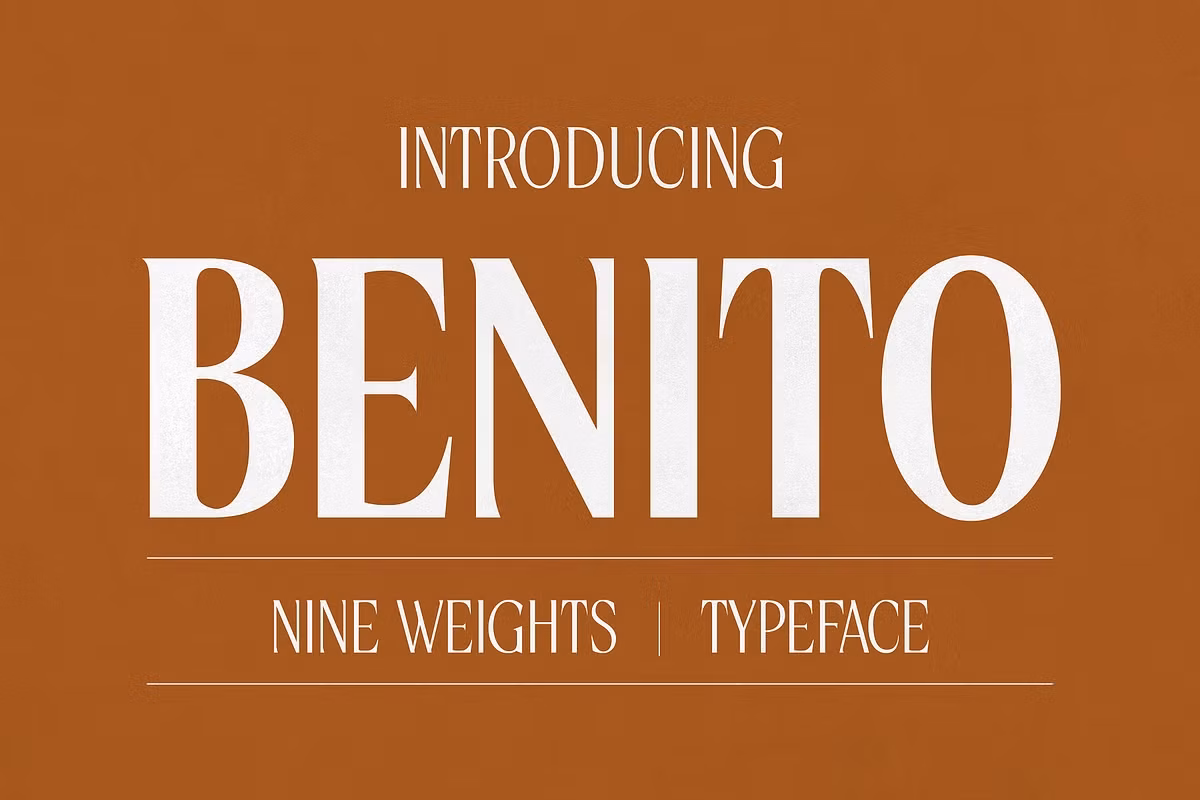
Benito – Timeless Typeface Free Download is a refined and elegant serif font that blends classic design with modern minimalism. Its graceful curves, balanced proportions, and subtle details make it perfect for luxury branding, editorial layouts, high-end packaging, wedding invitations, and sophisticated web design.
Designed to stand the test of time, Benito – Timeless Typeface Free Download offers both beauty and functionality. It includes a range of weights, stylish ligatures, and multilingual support—giving designers the flexibility to create polished, professional typography across a variety of platforms.